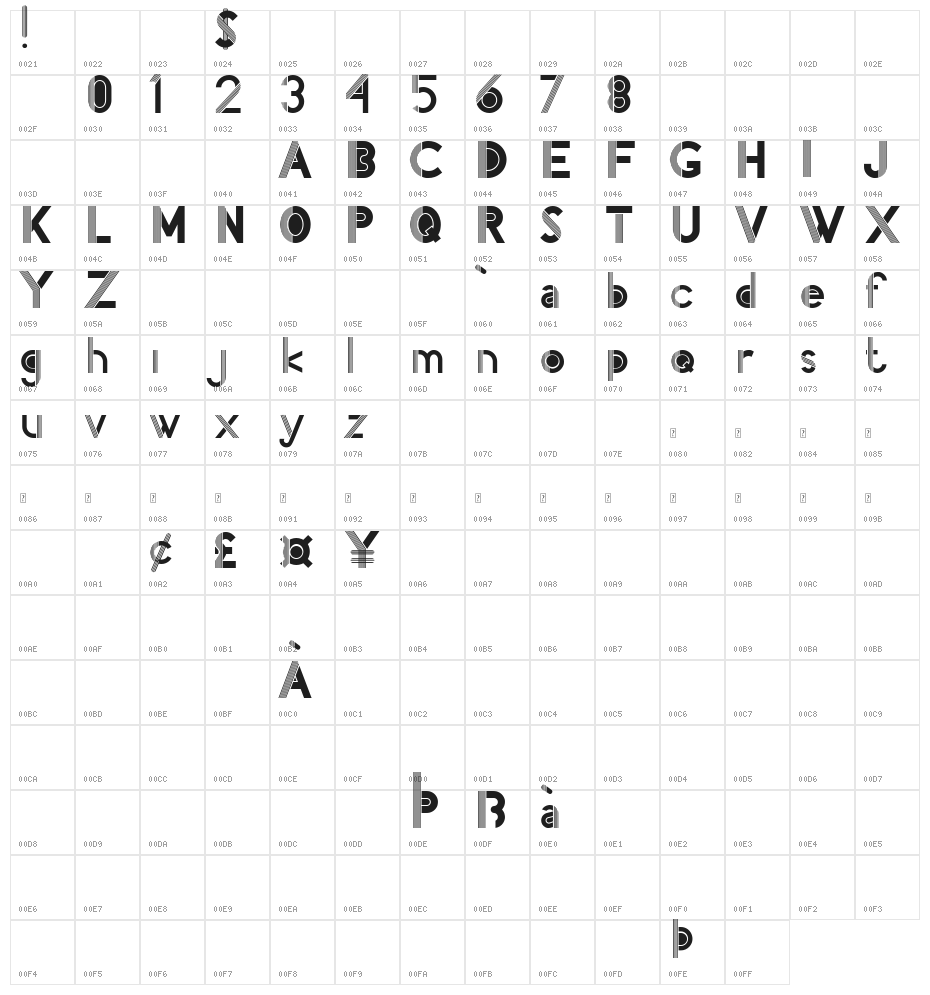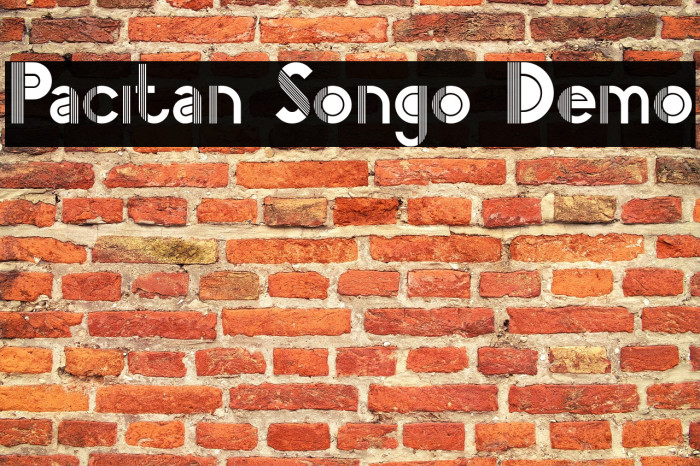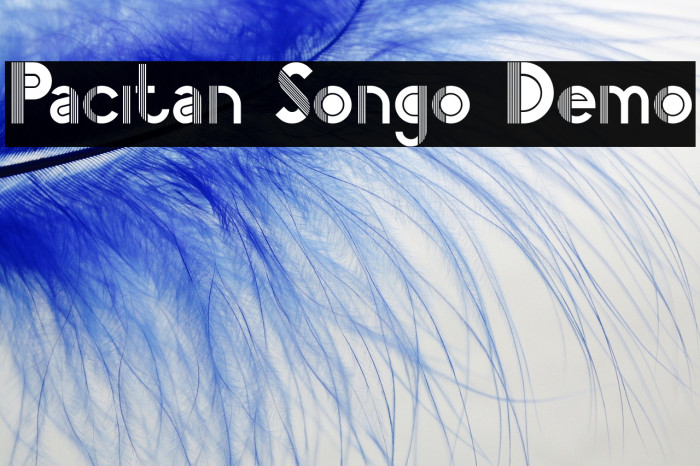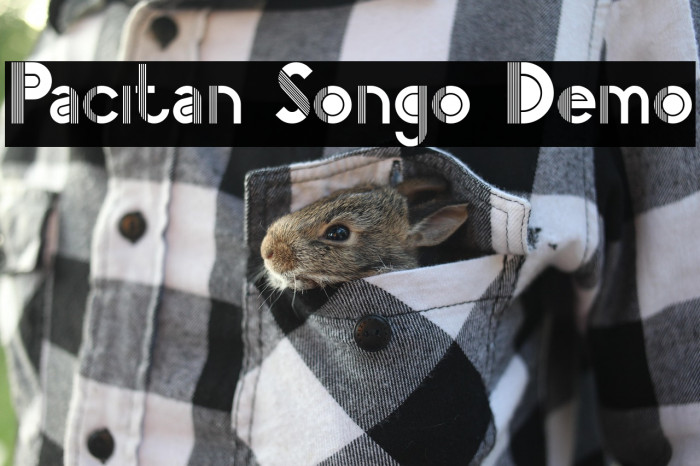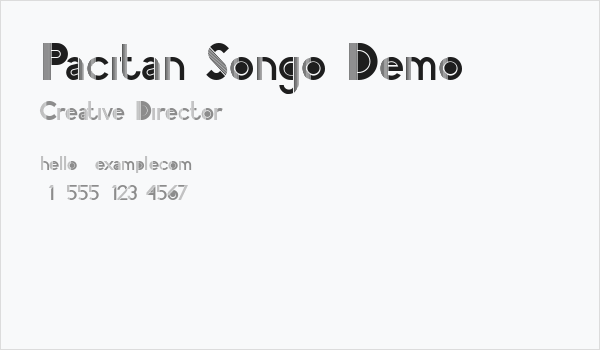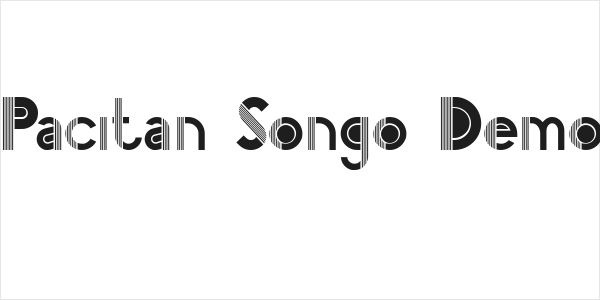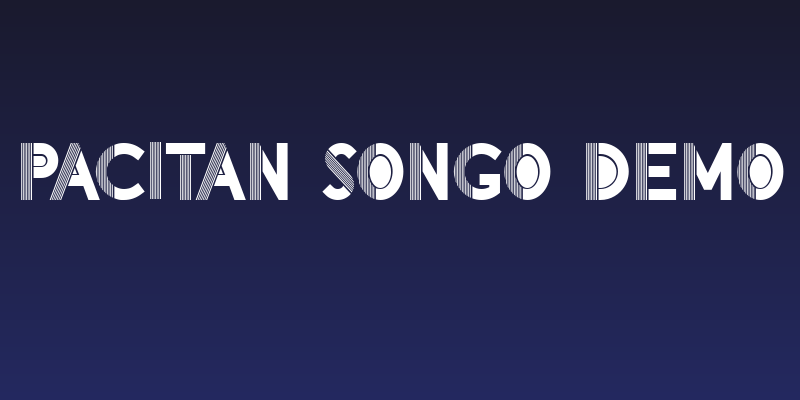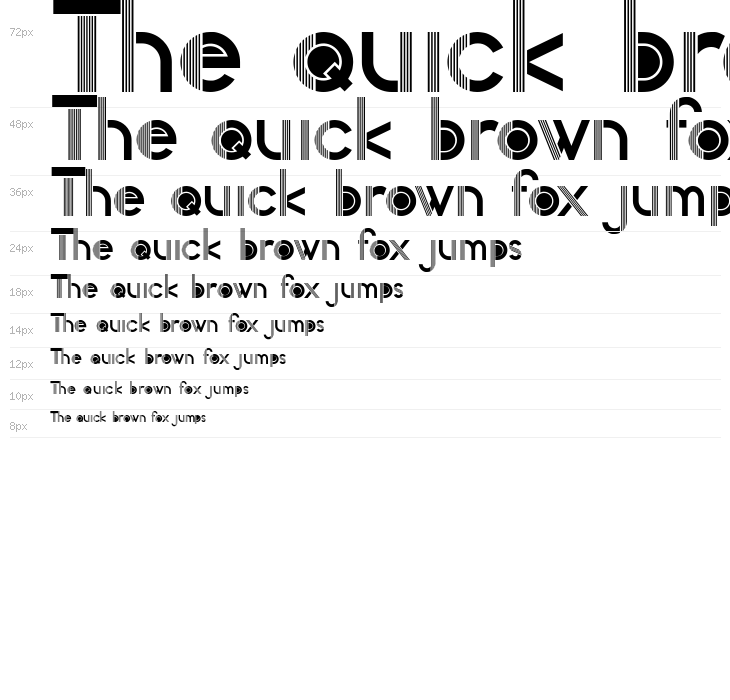
Pacitan Songo Demo Font
Pacitan Songo Demo Description
This font features a bold and striking design with a unique striped pattern running through each character. The uppercase and lowercase letters maintain a consistent style, with clean lines and geometric shapes. The numerals and special characters follow the same aesthetic, making the font cohesive and visually appealing. The striped pattern adds a dynamic and modern touch, making it stand out in any design. The overall appearance is both contemporary and artistic, suitable for projects that require a bold statement.
| Proposed Projects | Ideal for branding, posters, album covers, and any project that requires a bold and artistic touch. |